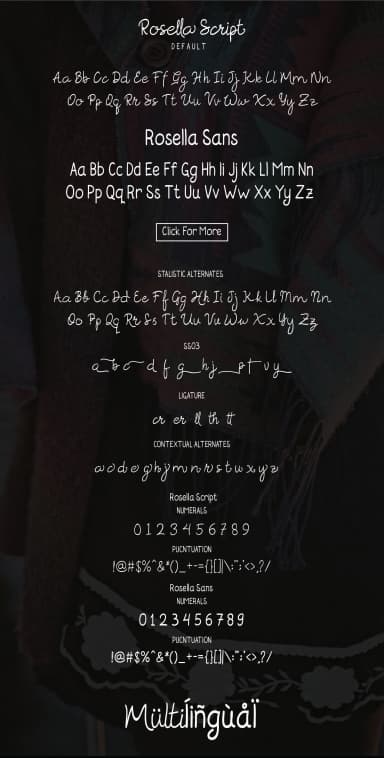
Rosella Font by Viaction Type.Co is a flowing script typeface that captures the charm of natural handwriting with refined, carefully crafted letterforms. The design brings an approachable elegance to any project, blending organic character with polished craftsmanship that works across both playful and sophisticated applications.
This versatile script works exceptionally well for luxury wedding invitation suites, heartfelt greeting card designs, artisanal product labeling, and custom monogram work. Whether you're creating a romantic save-the-date or designing packaging for handmade cosmetics and boutique skincare products, Rosella's flowing strokes deliver authentic personality without sacrificing legibility. The typeface also excels in editorial contexts, where its handwritten quality adds warmth and visual interest to magazine spreads and book jackets. Its natural cadence makes it an excellent choice for boutique branding initiatives where distinctive personality matters as much as professionalism.
For DIY creators and makers, Rosella pairs beautifully with cutting machines for custom vinyl projects, heat-transfer applications, and hand-drawn branding elements. The consistent letterforms make it reliable for scaling across different media, from intimate stationery to larger signage installations. With its natural character and technical precision, Rosella suits both modern brand identities and vintage-inspired designs equally well. Get Rosella Font on Creative Fabrica and bring authentic character to your creative work.
Rosella Font is a script font that shines as a display or heading face. Pair it with a clean sans-serif or serif font for body text — the contrast creates a clear hierarchy while the two styles stay balanced and easy to read.
Rosella Font